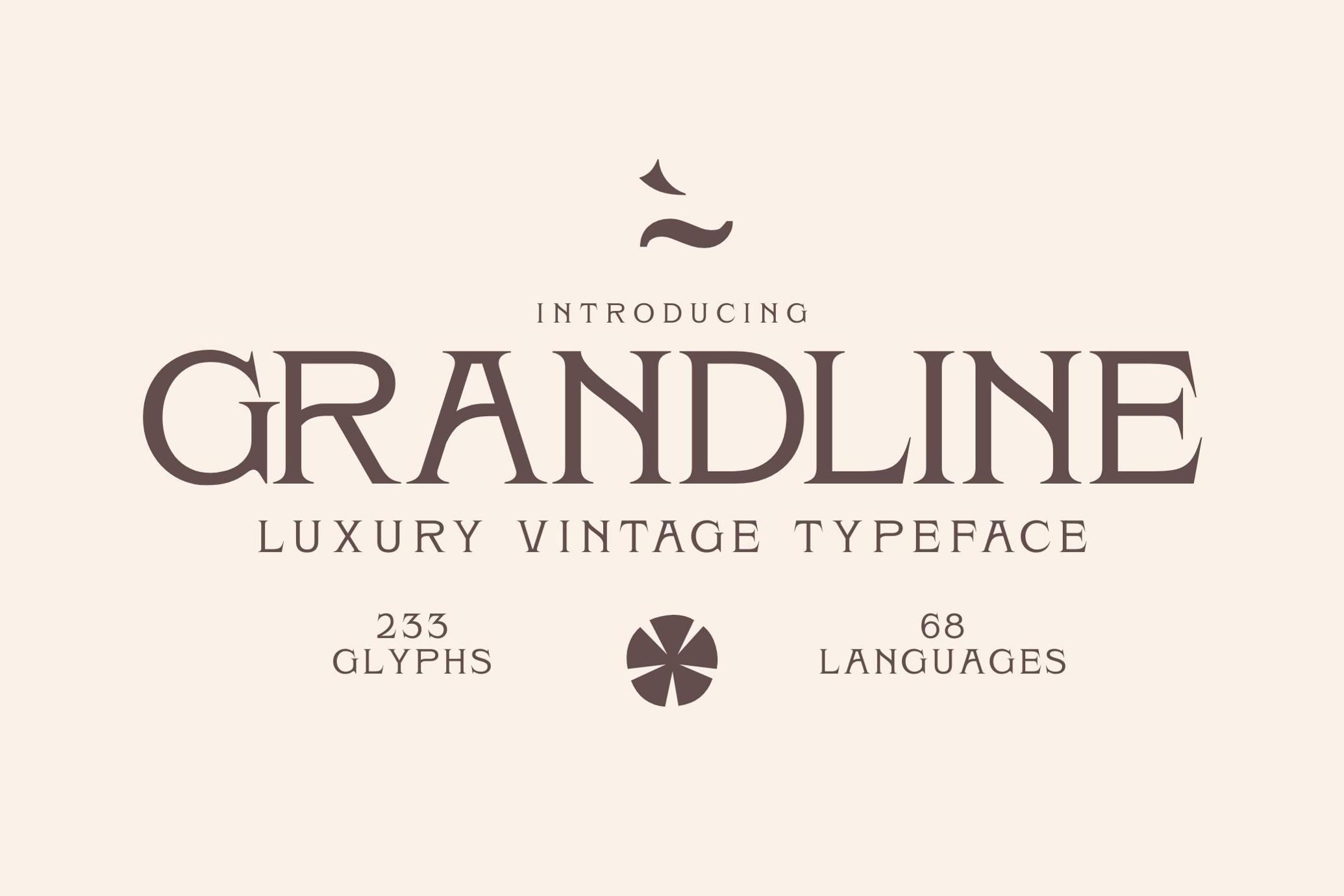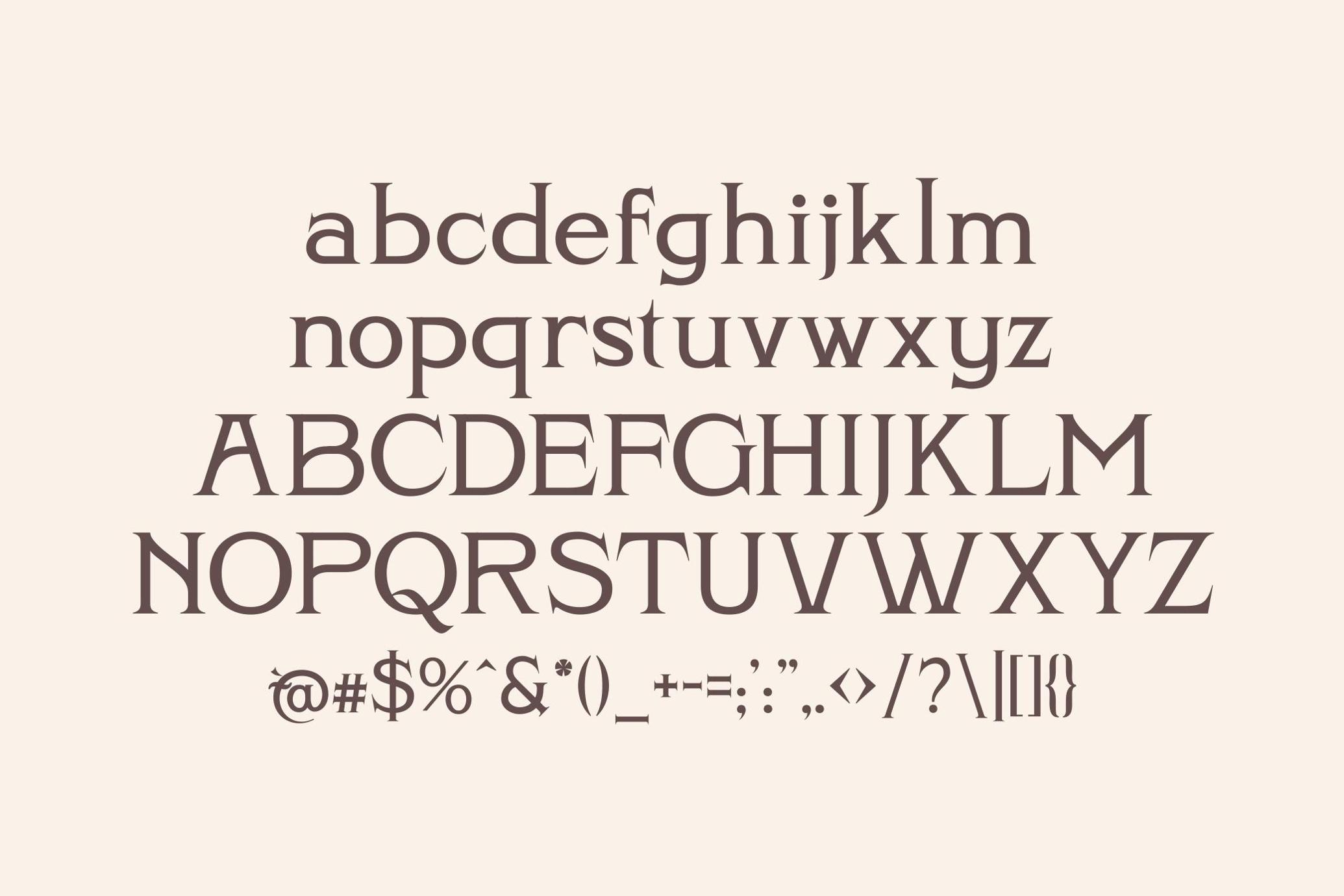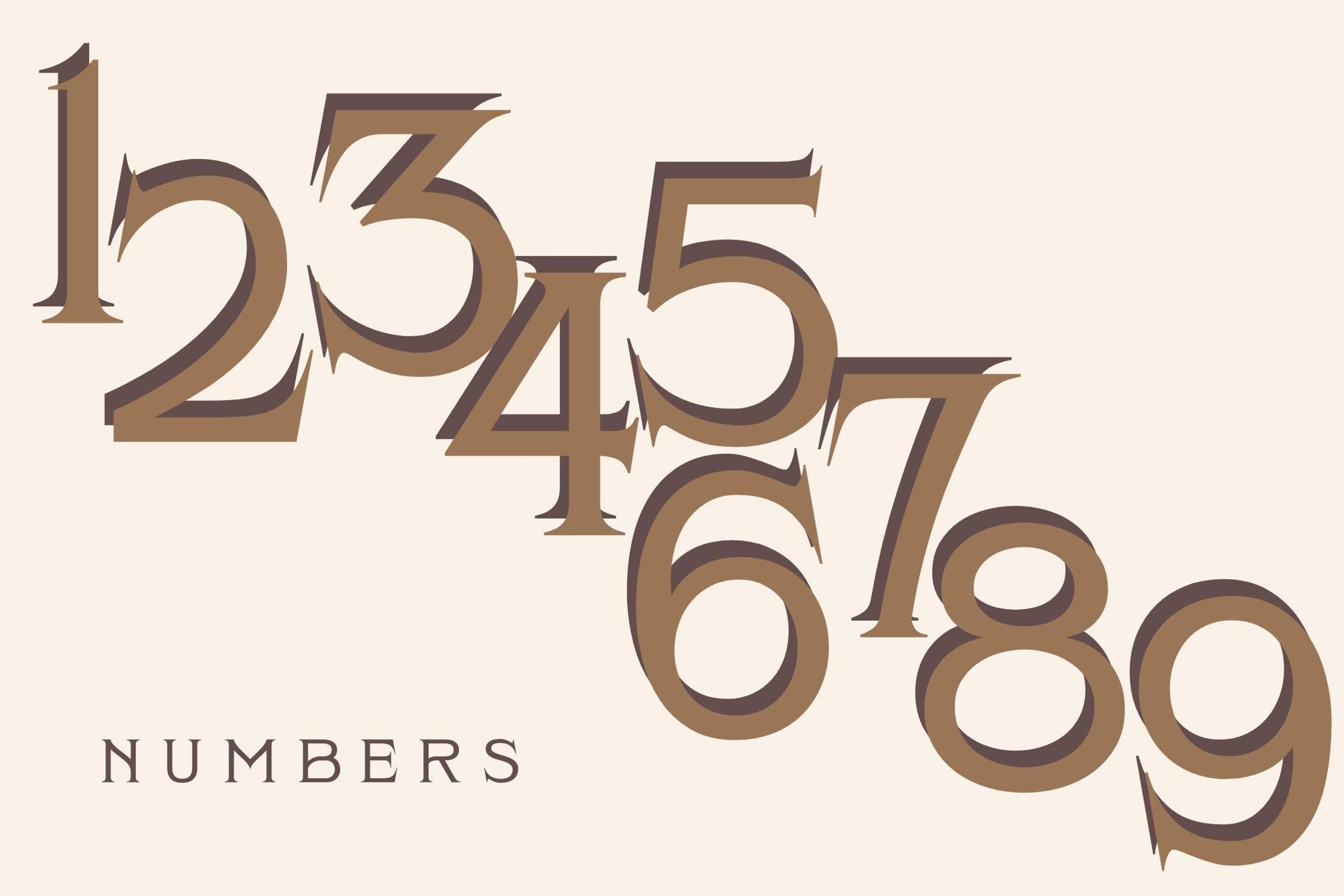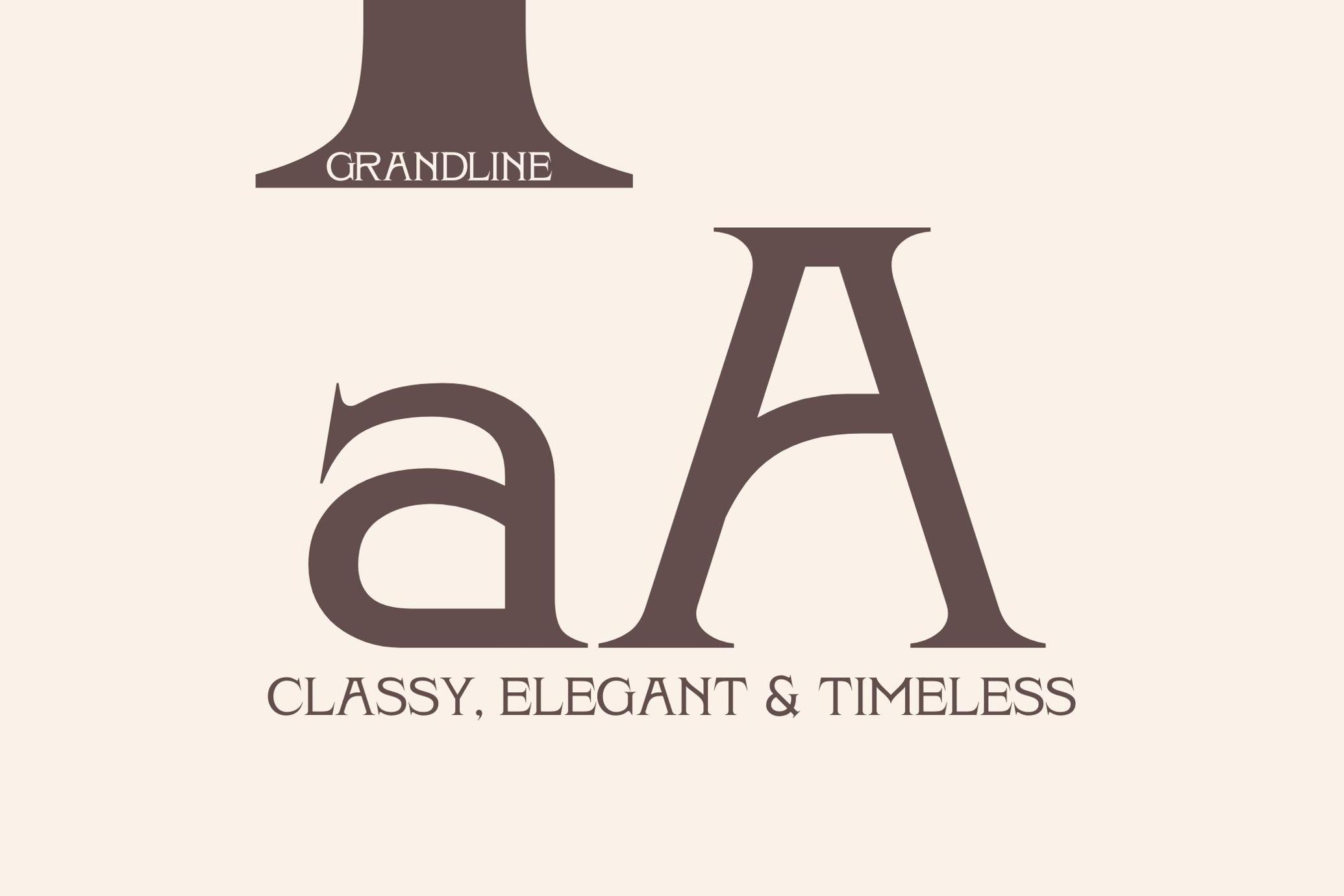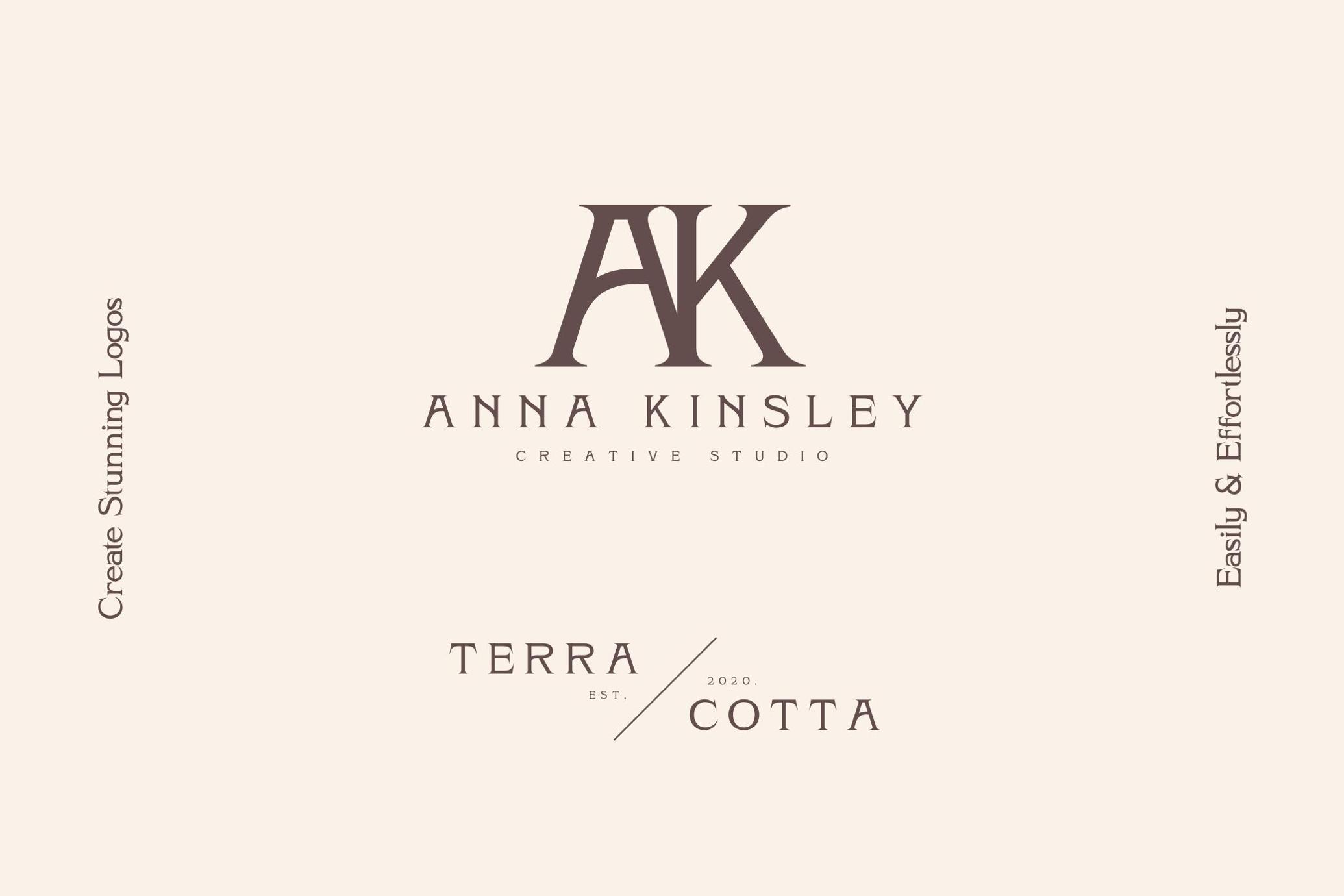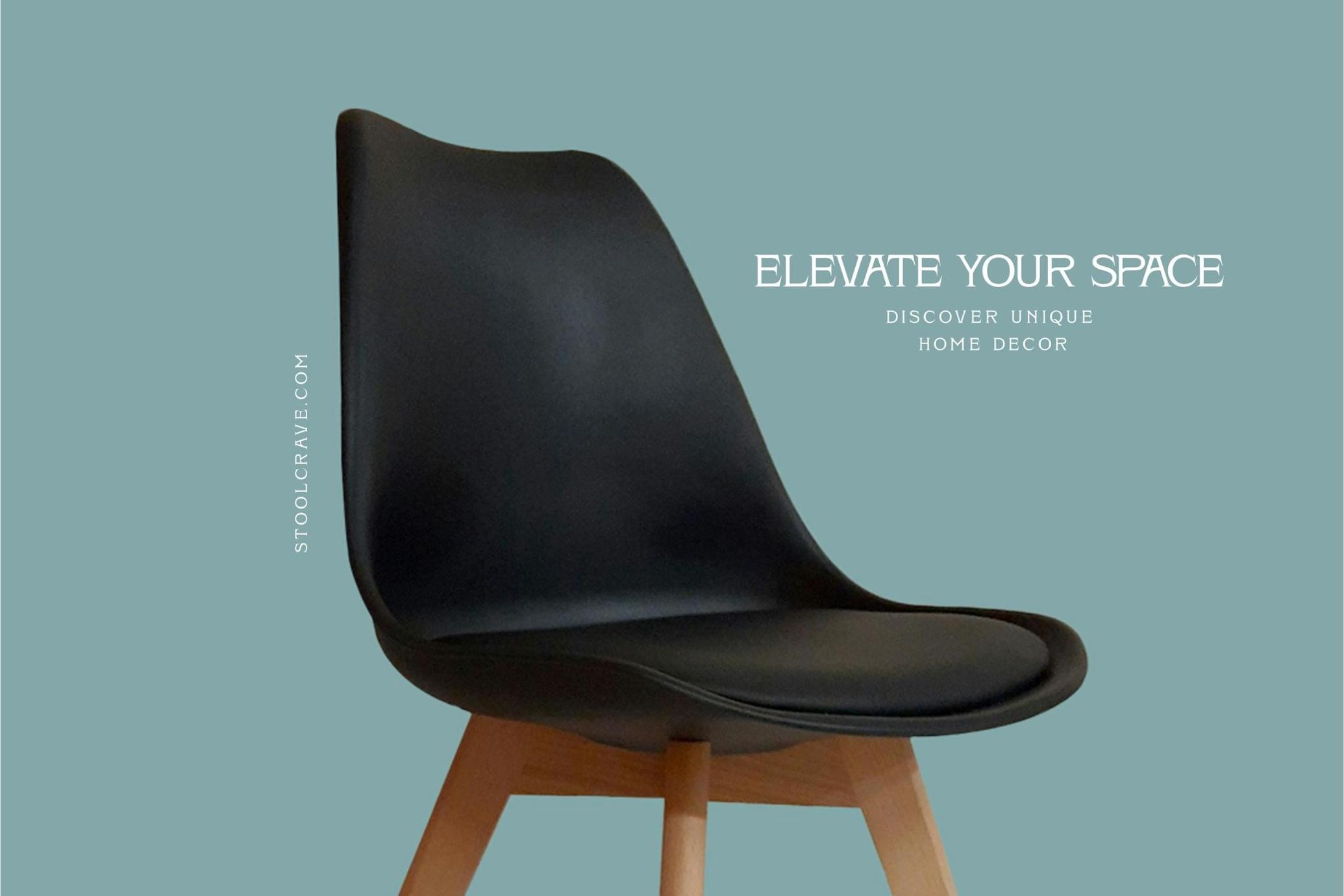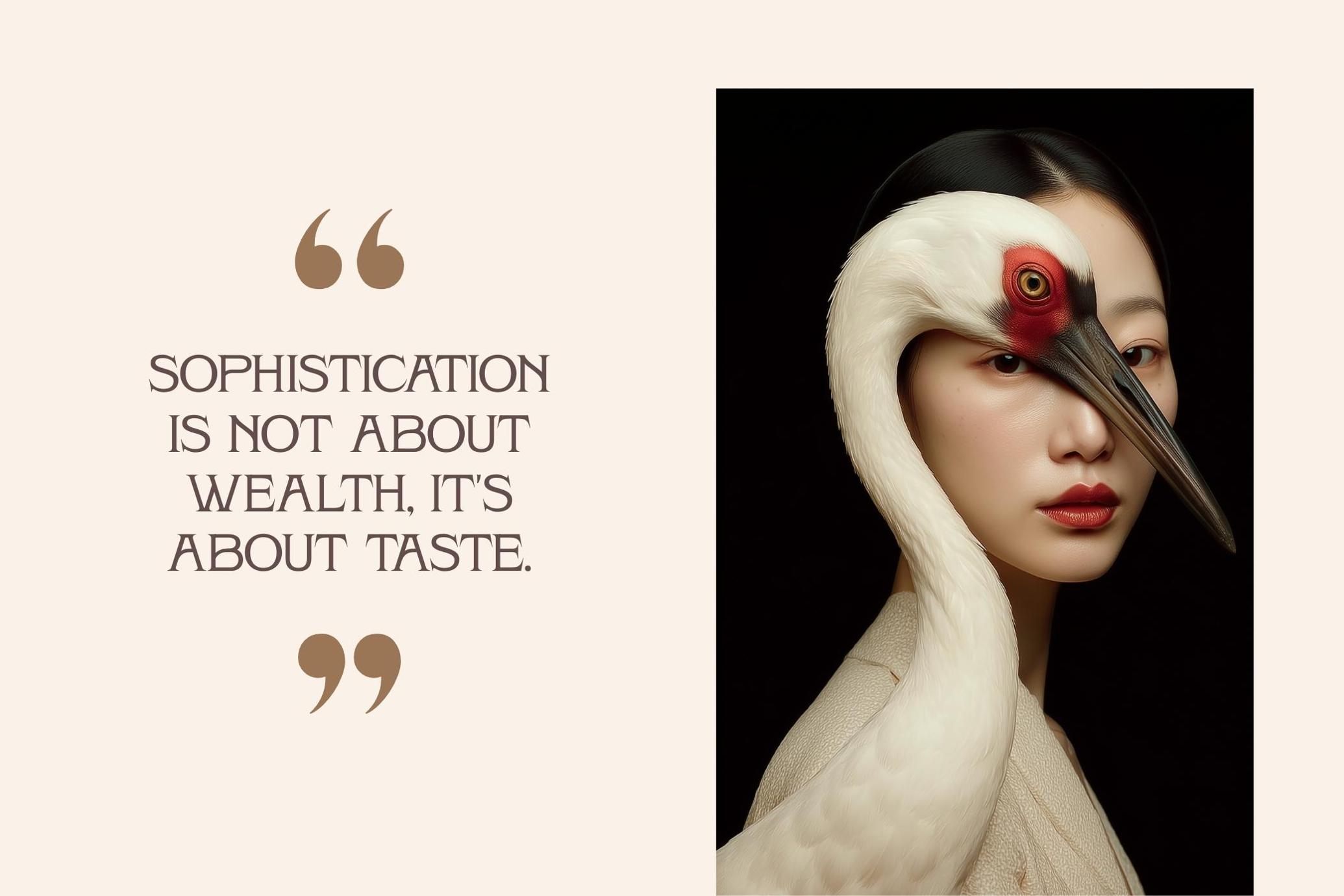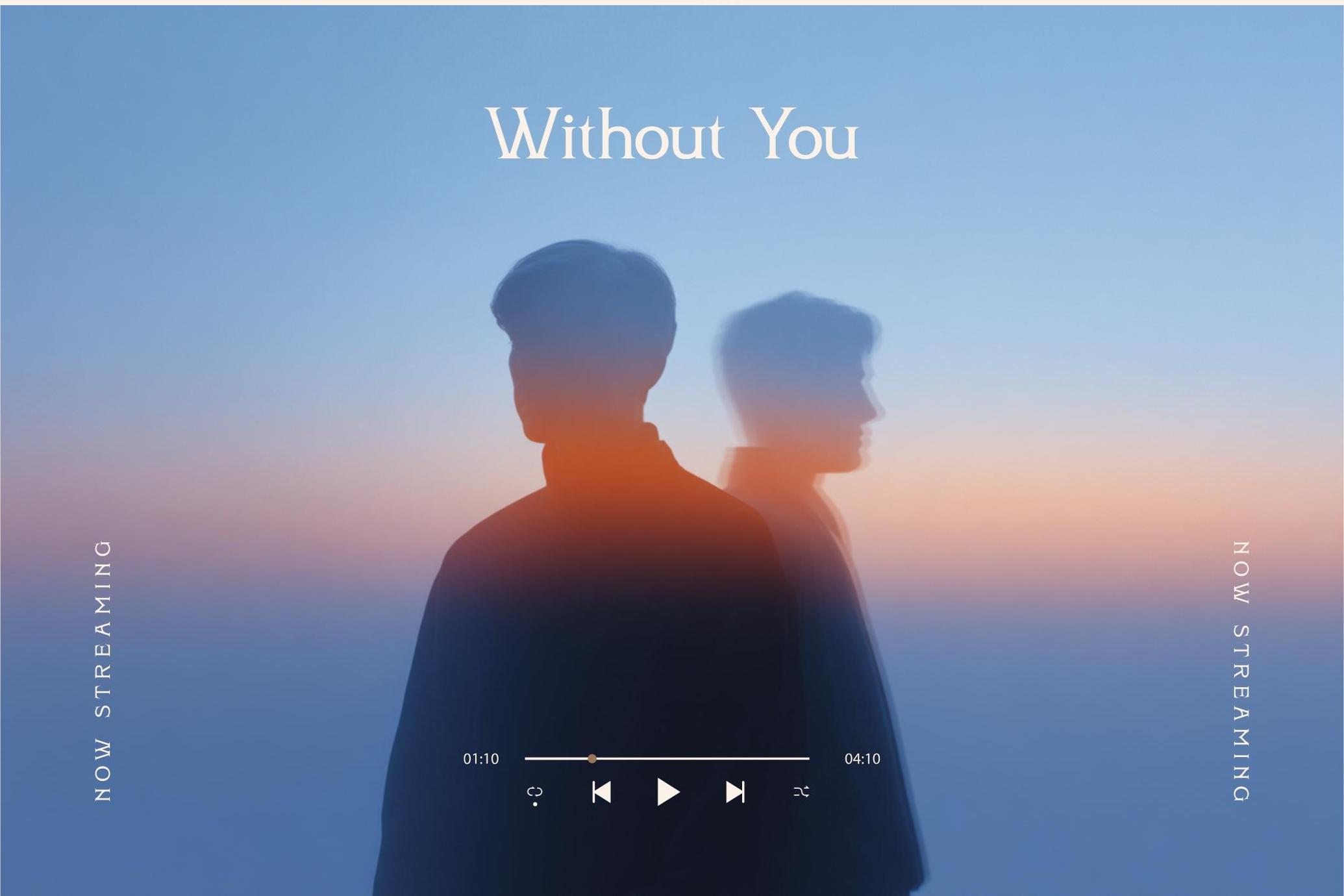
Grandline - Classy Luxury Typeface
Grandline is the epitome of vintage luxury, where classic refinement meets bold elegance. Designed to exude sophistication and high-end beauty, this typeface is a masterclass in tasteful typography. Whether gracing the front of a designer perfume box or adding grandeur to a wedding invitation, Grandline simply looks stunning in any scenario.
With 233 meticulously crafted glyphs and support for 68 languages, Grandline is as functional as it is beautiful. The fine details, elegant curves, and vintage flair make it the ideal choice for premium branding, fashion editorials, wedding stationery, high-end packaging, and social media designs that demand attention.
This typeface isn’t just another pretty font, it’s a statement of taste, a reflection of careful design, and a symbol of style. If your project calls for luxury, elegance, and timeless beauty, Grandline delivers with confidence and grace.